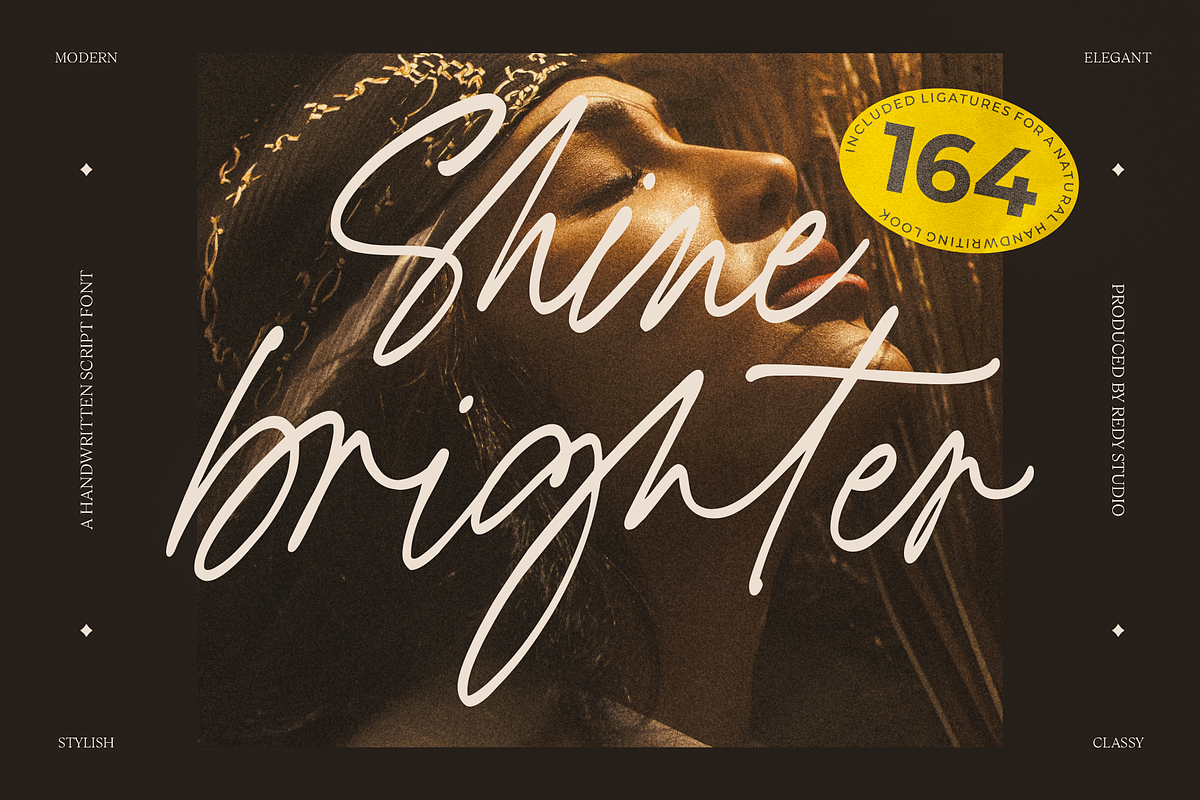
Shine brighter – Handwritten font Free Download
Shine Brighter – Handwritten Font Free Download
Please note, to use this font for commercial purposes, you must purchase the full version. Shine Brighter is a charming handwritten font that brings a personal and uplifting touch to your designs. With its flowing, natural letterforms, this font is perfect for creating invitations, logos, branding, and creative projects that need a touch of warmth and authenticity. Whether you're designing for a friendly brand, a personal event, or an inspiring message, Shine Brighter adds a unique and positive flair to your work. Test it out and enjoy free download access for personal use. Experience the delightful charm of Shine Brighter – Handwritten Font Free Download before purchasing the commercial license. Add a personal, handwritten style to your designs with Shine Brighter.